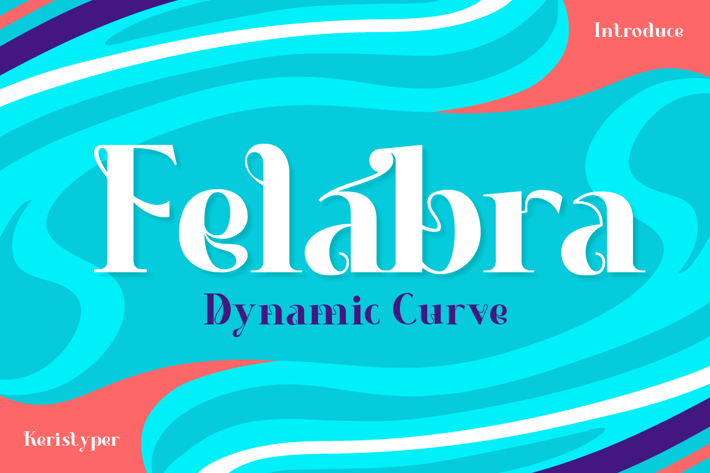
Felabra Font
Felabra is a contemporary font with fun connected curves, giving it a unique feel but can also be modern and stunning. This font is good for logo design, Social media, Movie Titles, Books Titles, short text even long text letters, and good for your secondary text font with sans or serif.
Standard Uppercase & Lowercase
Multilingual : ä ö ü Ä Ö Ü ß ¿ ¡
Alternate & Ligature